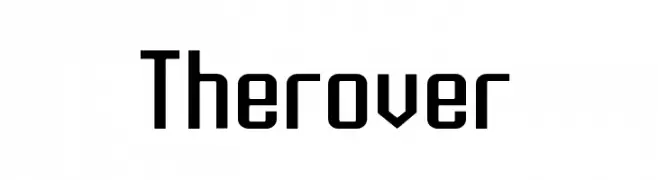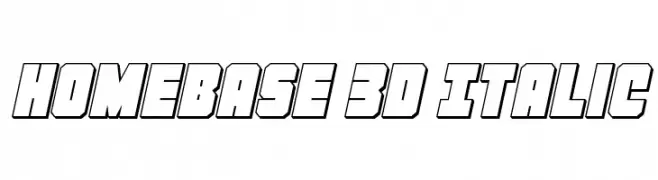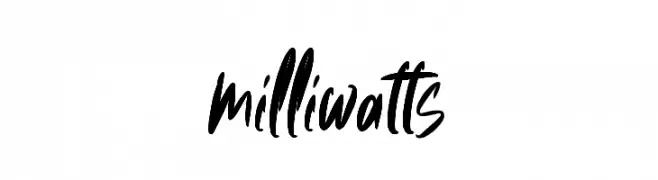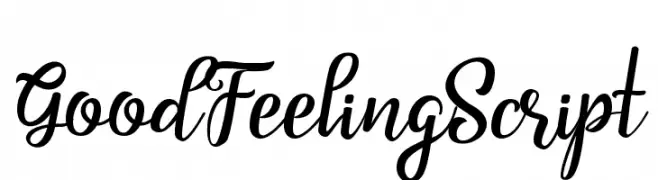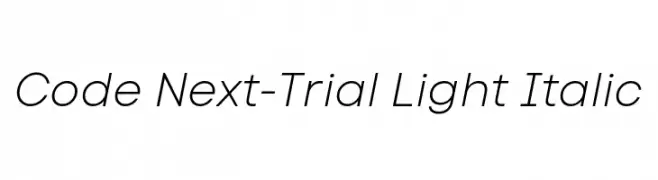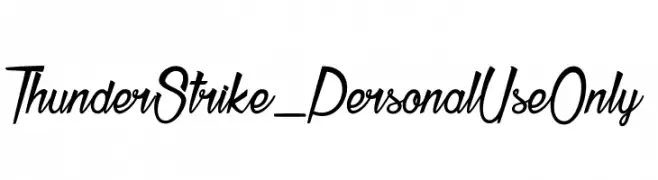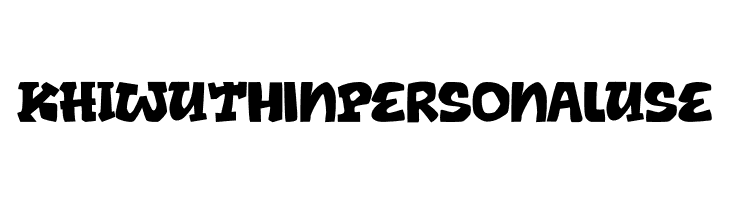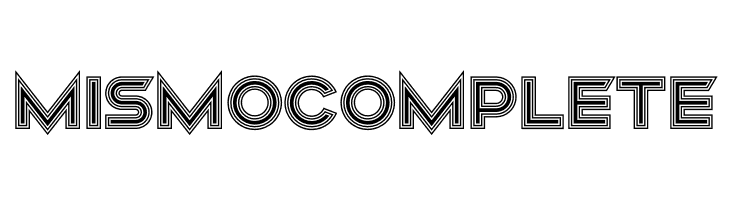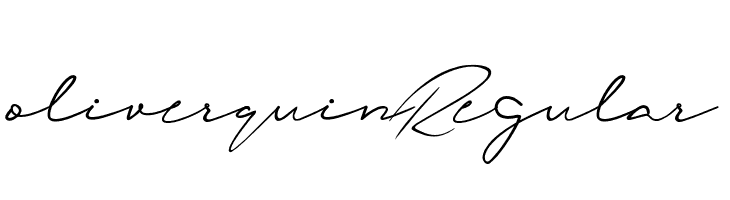
A modern, geometric font with clean lines and a structured appearance.
A bold, 3D italic font with a geometric, modern style.
A lively handwritten font with fluid, connected strokes and playful bounce.
A bold, cursive font with dynamic strokes and a lively, hand-drawn style.
A bold, outlined font with geometric lines and a modern aesthetic.
A lively and expressive script font with elegant loops and flourishes.
A modern, light, and italic sans-serif font with a sleek design.
A bold, playful script font with flowing, rounded letterforms.
A bold, italicized sans-serif font with a modern and dynamic style.
A dynamic and expressive font with sharp angles and smooth curves, ideal for impactful designs.